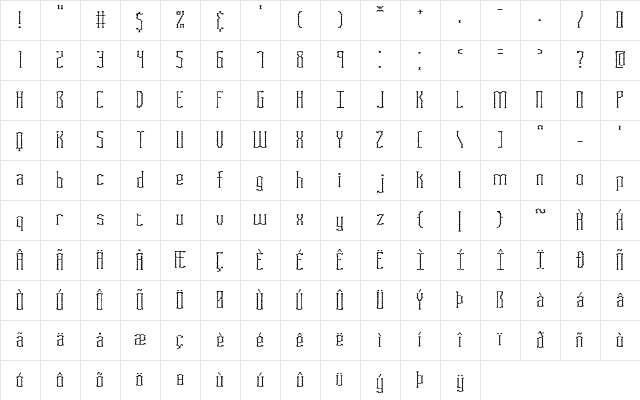
Fascii Scraggly BRK Regular
Design Context for Fascii Scraggly BRK
Fascii Scraggly BRK is a composed and adaptable typeface that performs quietly and consistently across a wide range of design contexts.